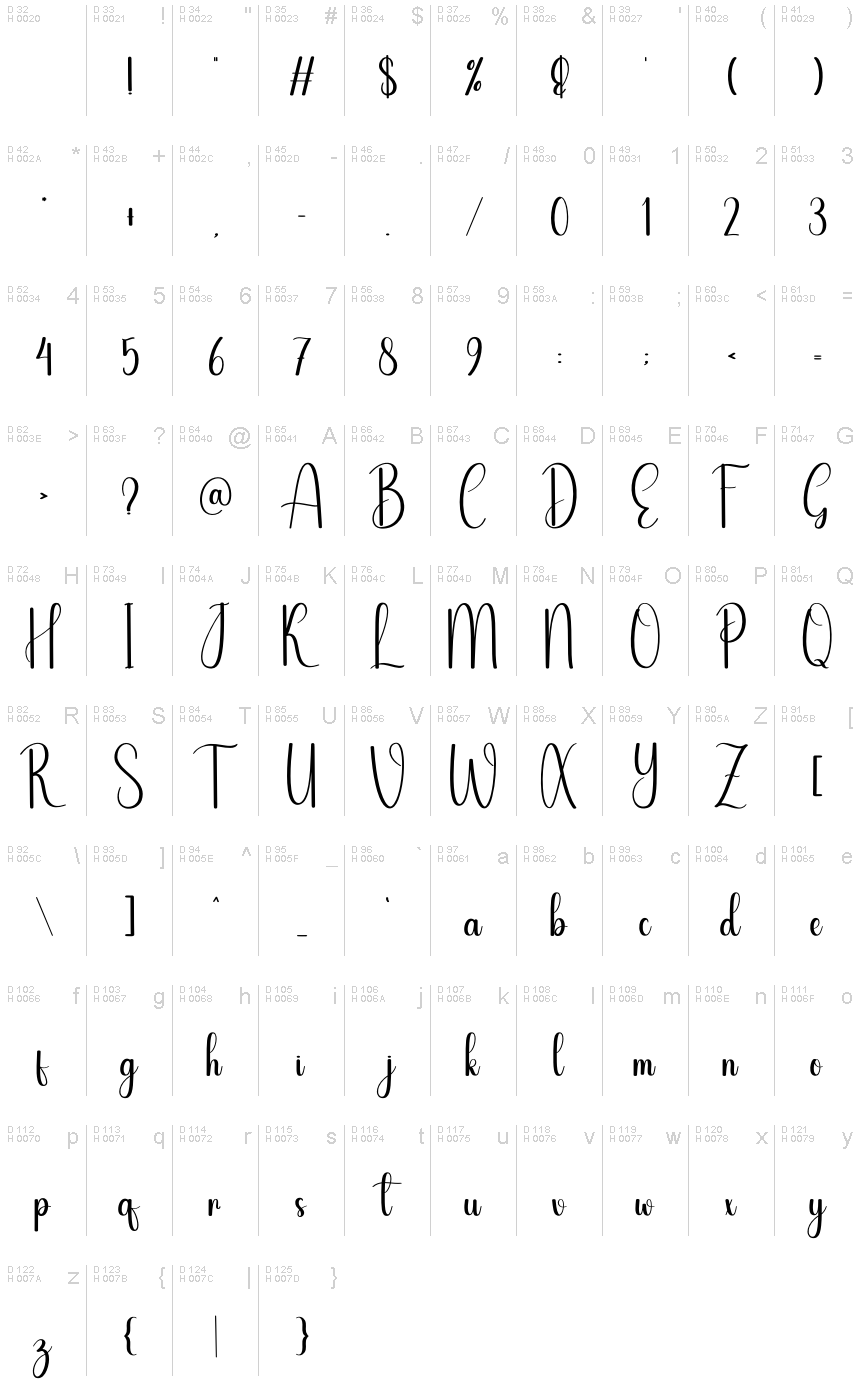
Herbs
Herbs is a captivating handwritten font that exudes a sense of organic charm and artisanal elegance. Designed by Andi Moz, this condensed typeface boasts an alluring, flowing script that seamlessly blends modern and vintage aesthetics.
The fluid, interconnected letterforms evoke a sense of handcrafted authenticity, making Herbs an ideal choice for projects that require a touch of rustic sophistication, such as luxury branding, wedding invitations, or artisanal product packaging. Its compact width lends itself well to versatile applications, from headlines and subheadings to eye-catching textual accents.
Herbs' unique character and adaptability make it a valuable asset for designers seeking to infuse their work with a captivating, handcrafted flair.